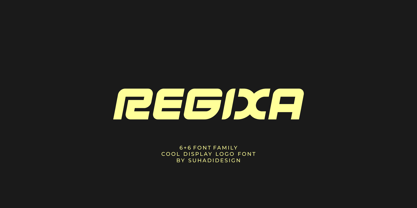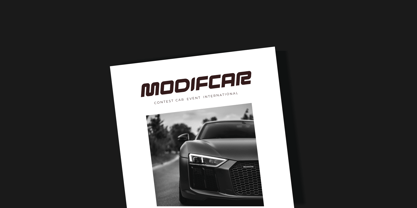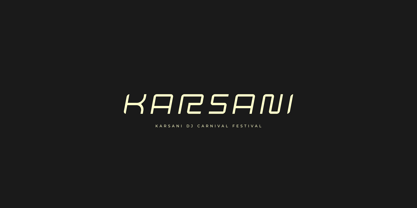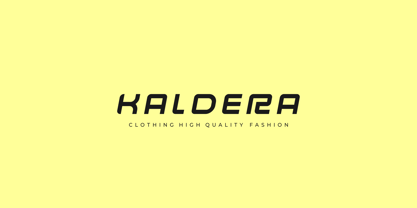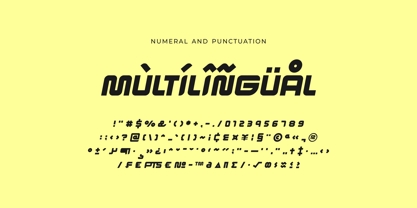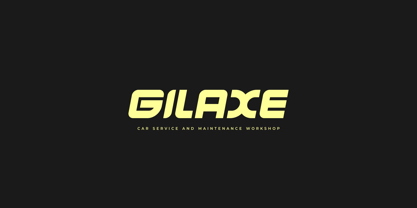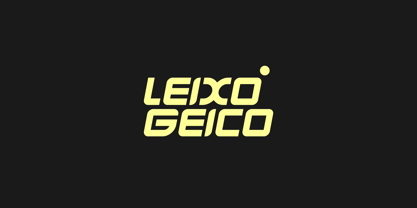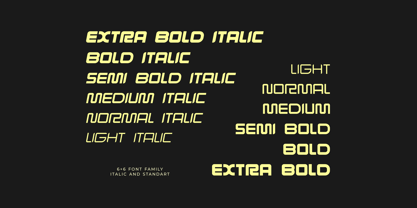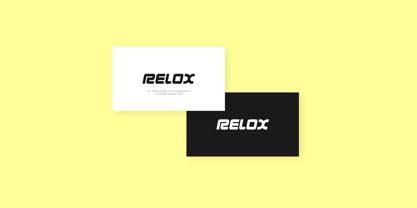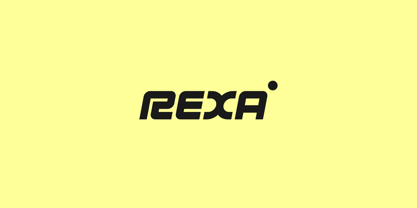
Regixa Norm
by suhadidesign
The Regixa Norm Font Family was designed by ahmad suhadi and published by suhadidesign. Regixa Norm contains 12 styles and family package options. More about this family
Regixa - Display Logo Font
In response to market demand, I created a minimalist sans serif font that is modern, elegant, and cool. Therefore, I decided to create this sans serif font. Regixa is a minimalist sans serif font, presented with a modern style to become a market favorite. We've kept this font elegant, classy, modern, stylish, up-to-date, and easy to use. Regixa is a great choice for logos, labels, fashion, posters, banners, bags, brands, fashion, brand names, branding, quotes, and other projects. Regixa is here to take your designs to the next level.
Font Features:
• All capital letters
• 6 + 6 families
• Multilingual support
• Numbers and punctuation
Designers: ahmad suhadi
Foundry: suhadidesign